Video: The making of a brand-new font, from a renowned typeface designer
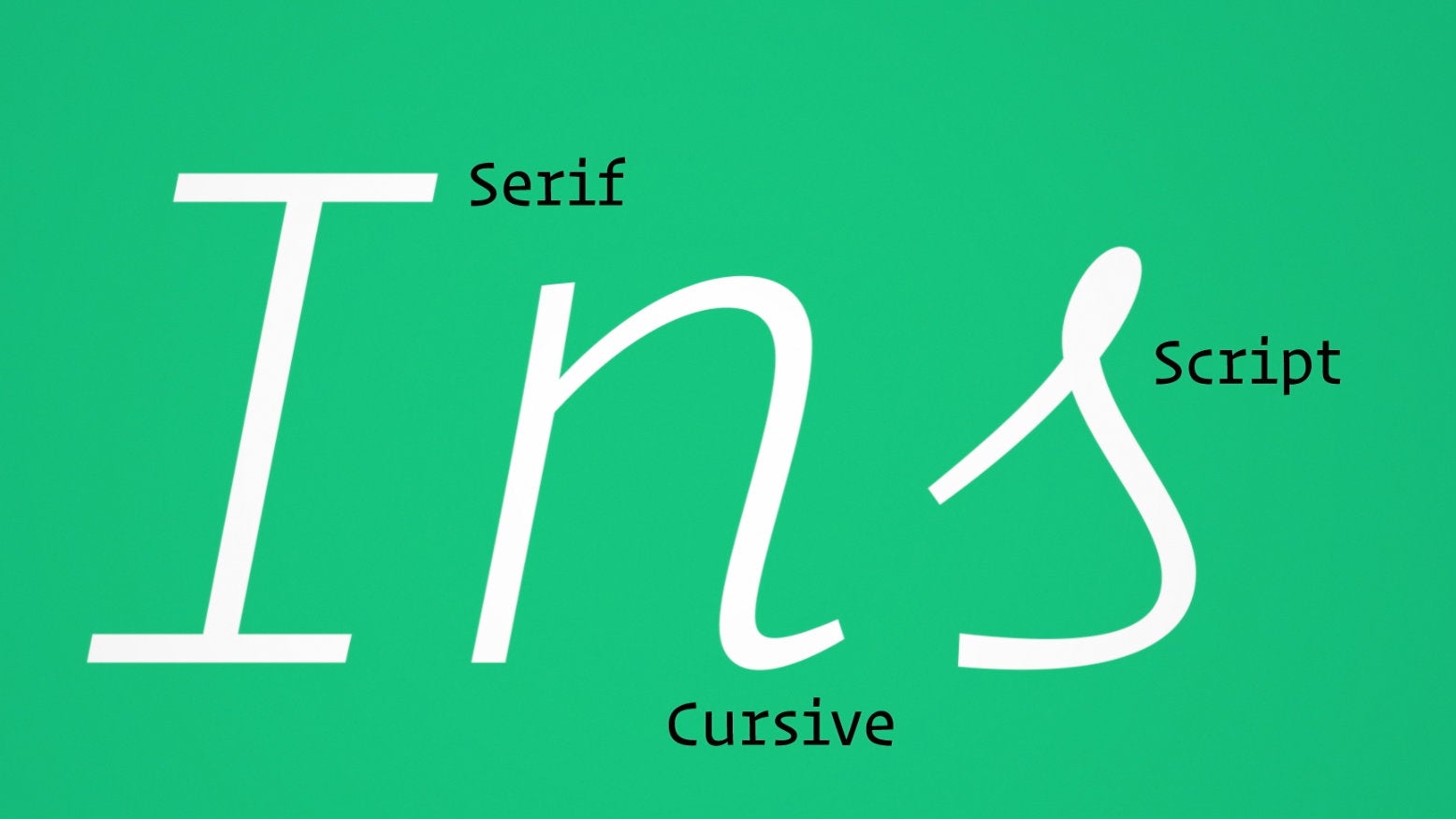
Fonts are used by all of us, yet understood by very few. Where do fonts come from? Who makes them? How do we know which one to use? And why are there so many?
With the Feb. 9 release of a new typeface called Operator, renowned New York-based designer Jonathan Hoefler and his team at Hoefler & Co. have released a video that answers many of these questions. In four minutes, they explain the thinking behind their process through the case study of Operator, a modern take on a typewriter-inspired typeface. “Typewriter faces have become part of the aesthetic of journalism, fundraising, law, academia, and politics; a dressier alternative to handwriting, but still less formal than something set in type,” explains Hoefler in their company blog.
Most new fonts are designed to fulfill a specific business purpose or evoke a specific mood. With an efficient series of montages, Hoefler shows off Operator’s versatility for everything from programming code to composing love letters.
Among Operator’s unique qualities is its usefulness for coders. In other coding fonts (and even in the font in this post), the letters “l” and “I” is hard to distinguish from the number “1,” which can cause frustrating errors. Operator’s distinct italics, inspired by old IBM Selectric script letterforms, allow developers to efficiently highlight key words in their code and “color” or differentiate the syntax without actually using colors.
“It was an especially meaningful gesture to me, as someone who, like three hundred million others, is red-green colorblind,” Hoefler said.
The self-produced video, a first for the veteran designer, is also a clever marketing strategy to promote the font and his 25-year old practice. “The most challenging thing was finding ways to illustrate complicated concepts, like the difference between ‘fixed widths’ and ‘natural widths,’” explains Hoefler, who used some animation to unpack geeky typographic nuances for a general audience.
Type foundries compete fiercely to differentiate their fonts from the hundreds of thousands of typefaces available on the internet today, but they generally are less concerned about reaching the masses. (Unlike fashion designers, there are no regularly scheduled Font Weeks.)